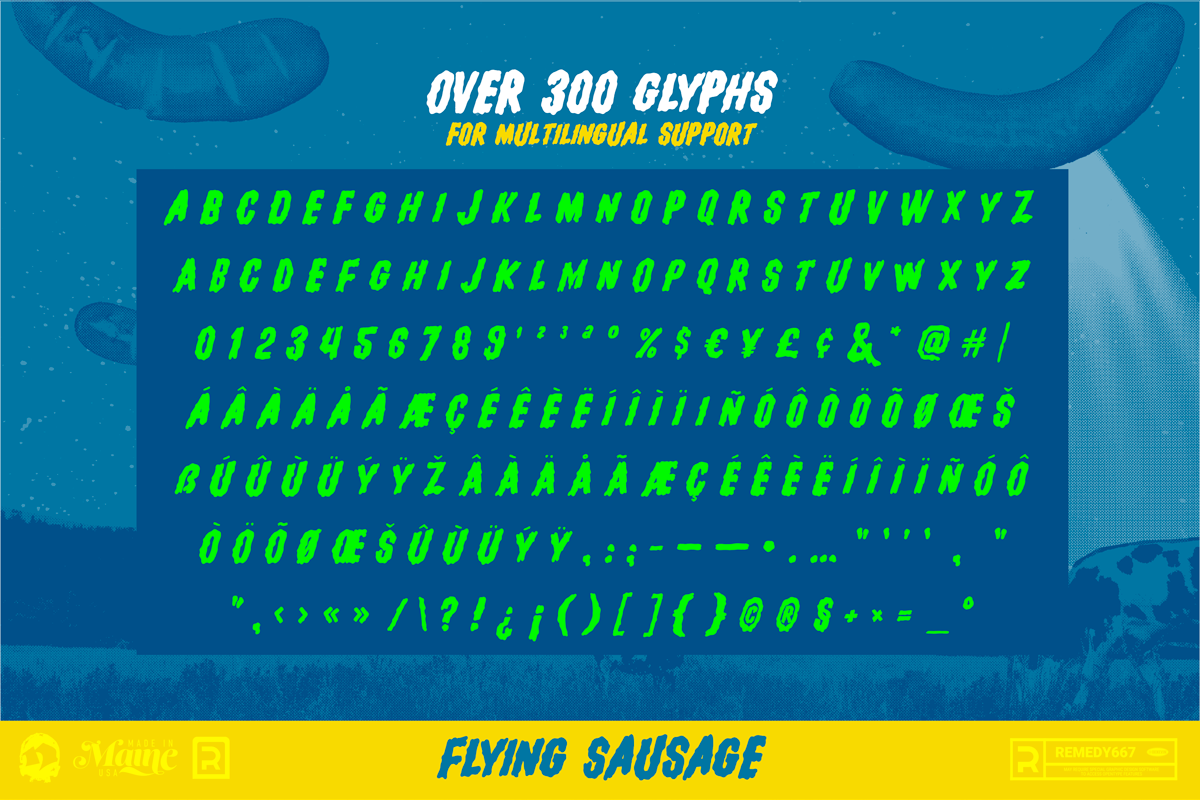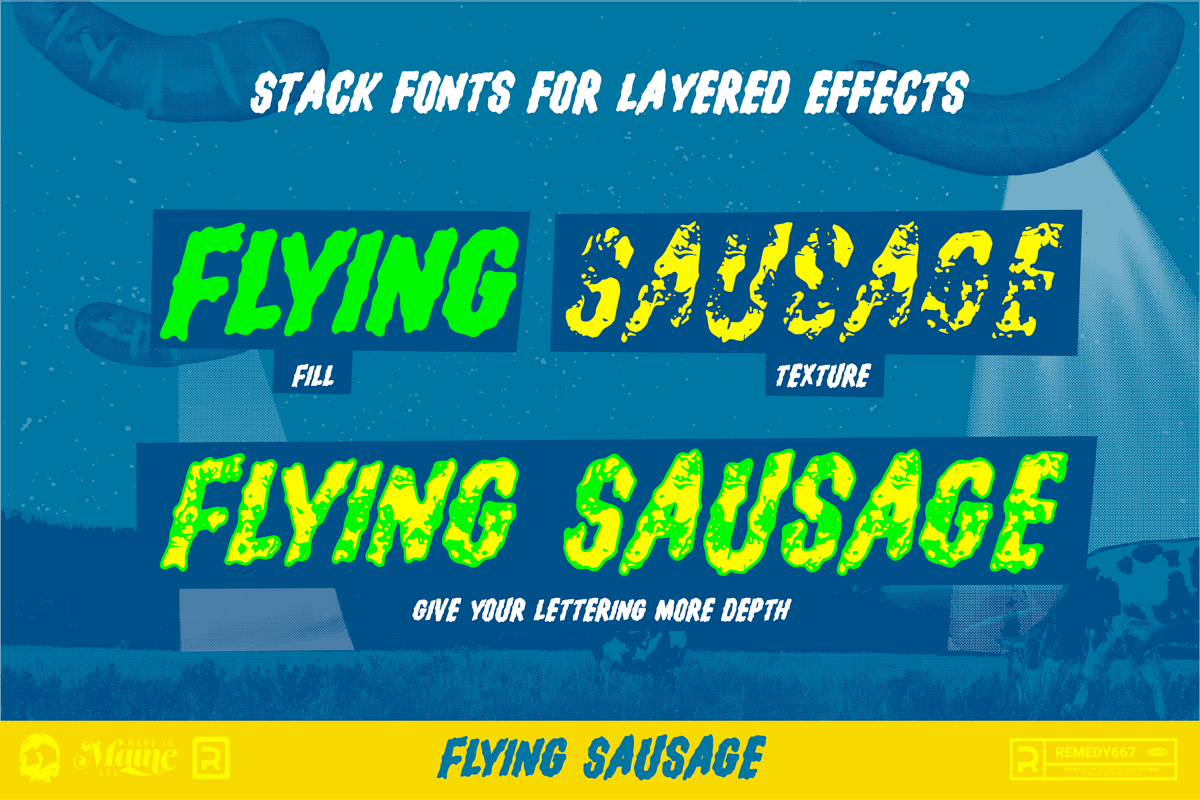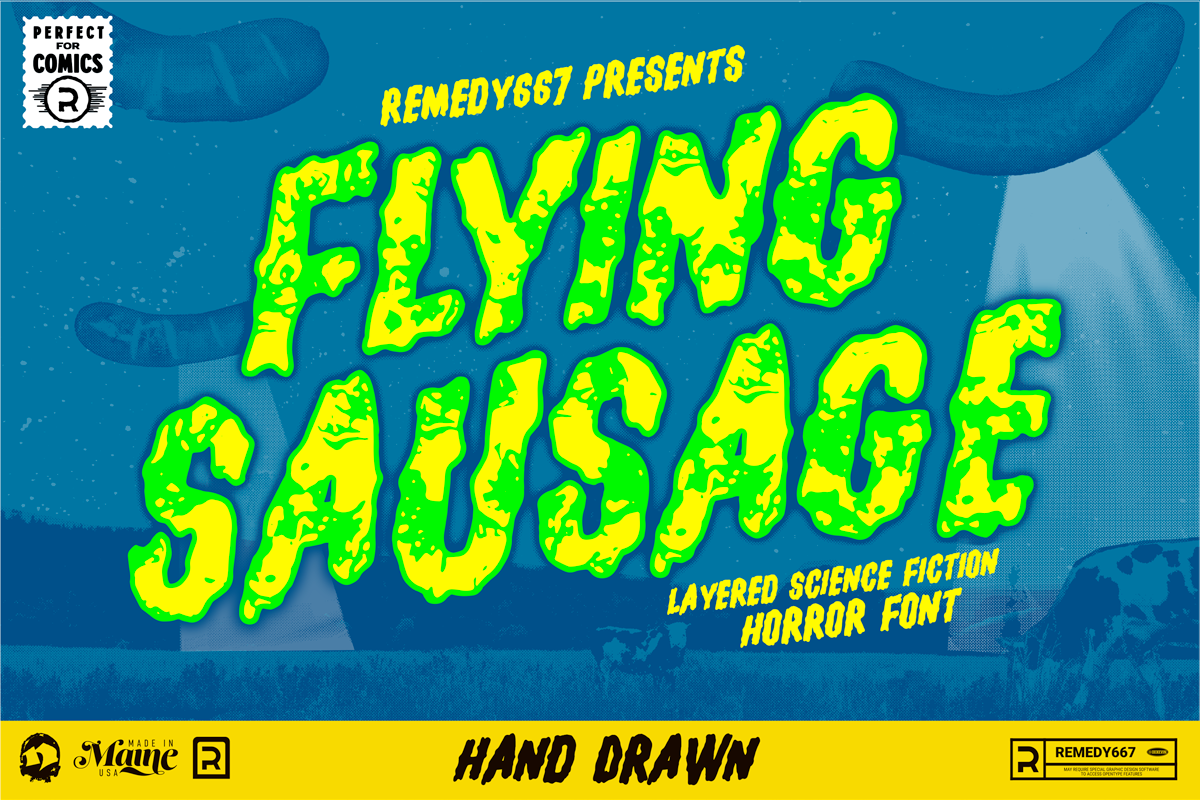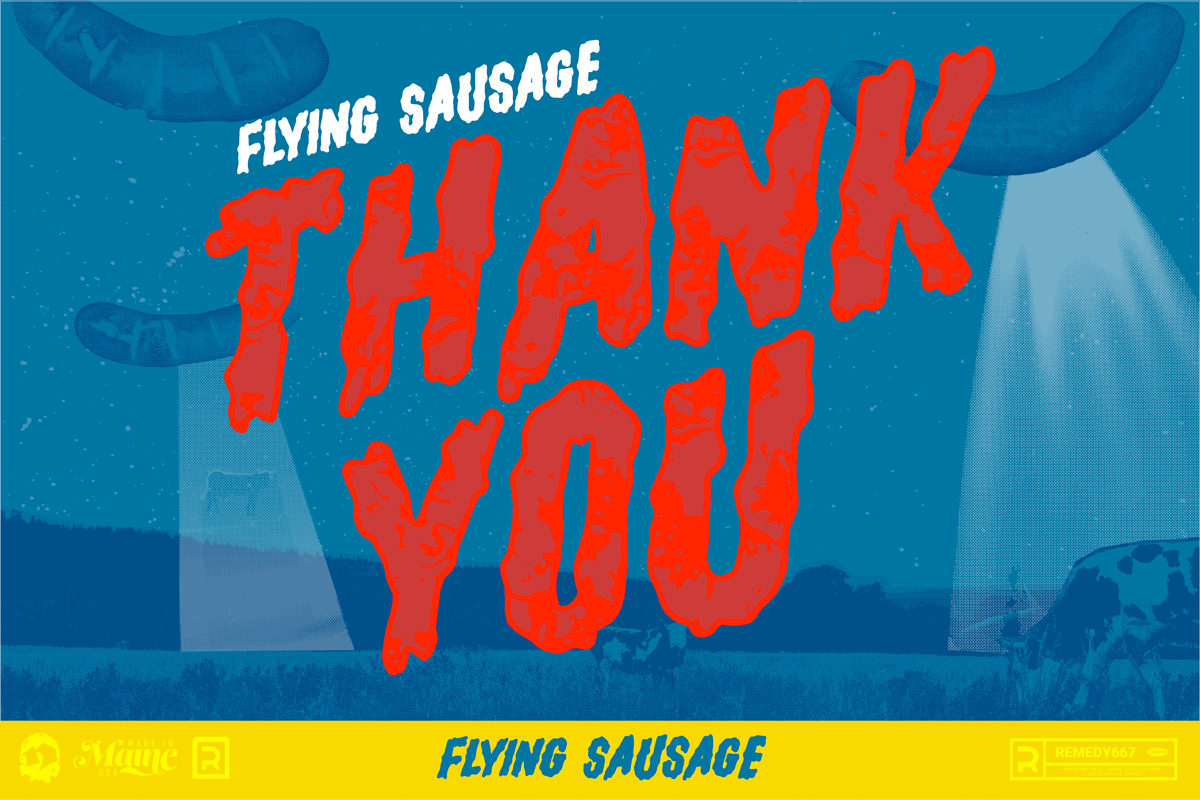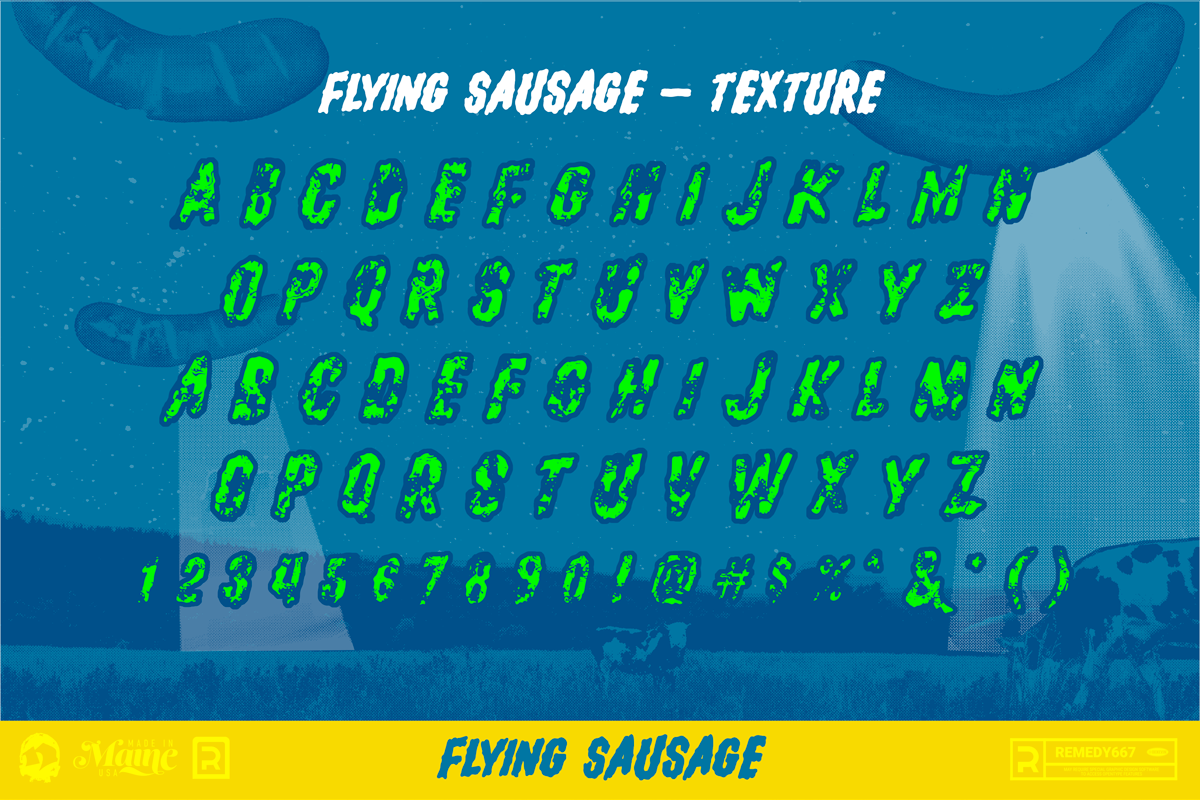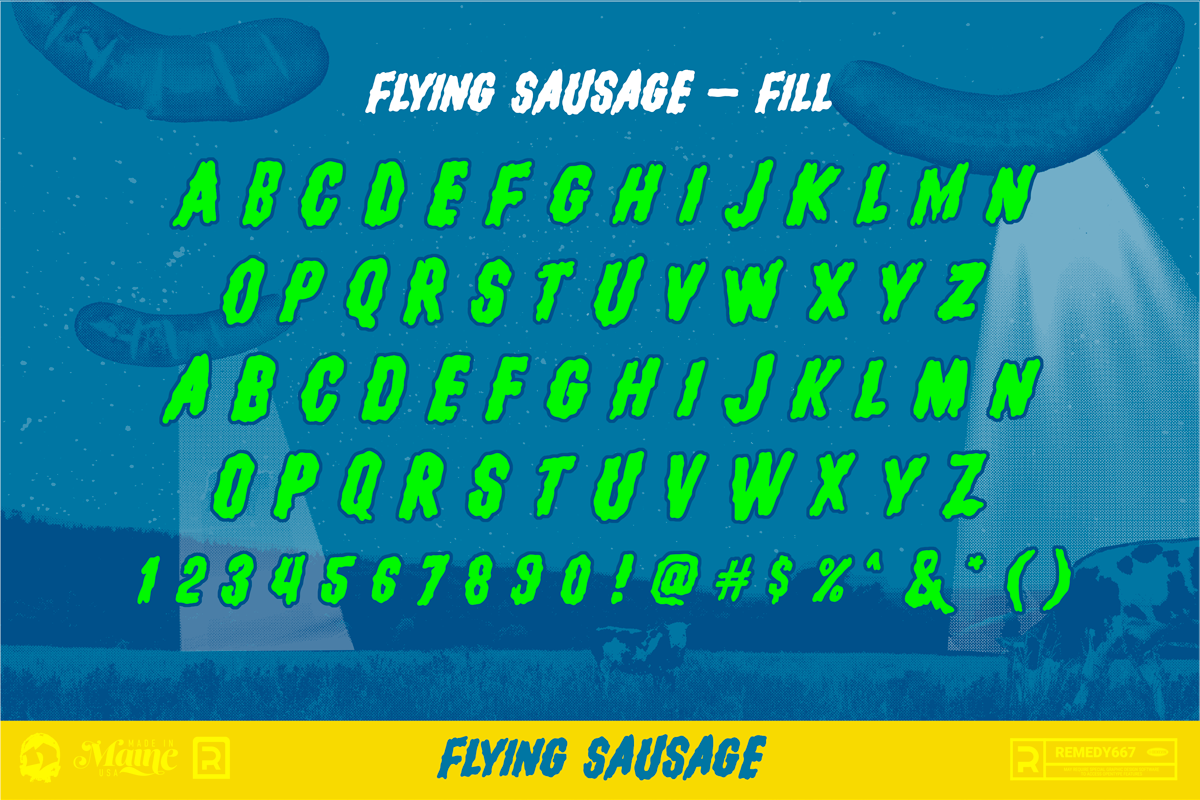
Flying Sausage - Layered Sci Fi Font
Flying Sausage. From beyond the stars it comes to take over your designs. Perfect for any science fiction or horror inspired comics, books, event flyers, pulps, rags, movies, logos, shirts… no design is safe, even drive-in theatre menus?!?
Includes a textured version for additional layered effects that make it jump off the screen! You’ll scream for Flying Sausage. Available now!
- Includes a textured version for additional layered effects that make it jump off the screen!